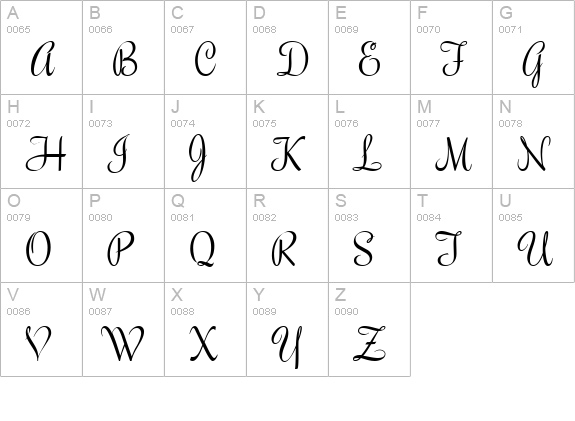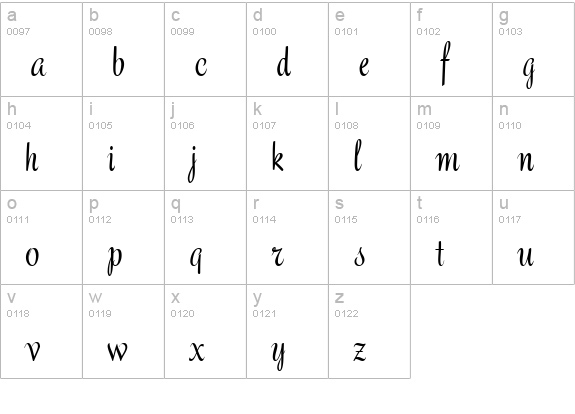
Roselyn Font Details
Roselyn font is a charming and elegant typeface that exudes sophistication and grace. Its delicate curves and stylish letterforms make it perfect for adding a touch of class to any design project. This font is ideal for use in invitations, wedding stationery, branding, and more. What's even better is that Roselyn font is available for free download at FontsMarket.com. That's right, you can enhance your creations with this stunning font without spending a dime. Don't miss out on the opportunity to elevate your designs with the timeless beauty of Roselyn font. Download it today and let your creativity shine!